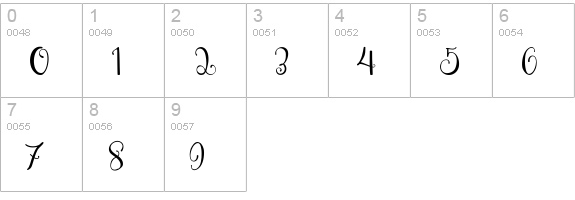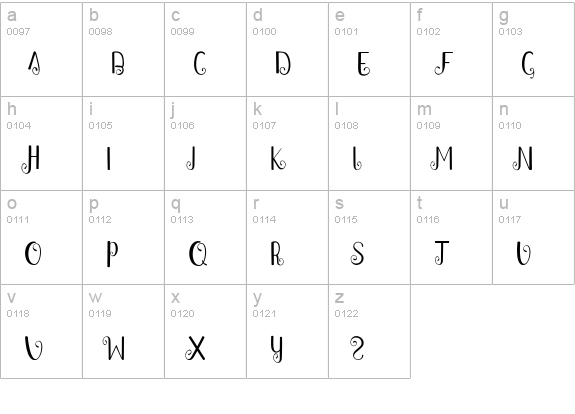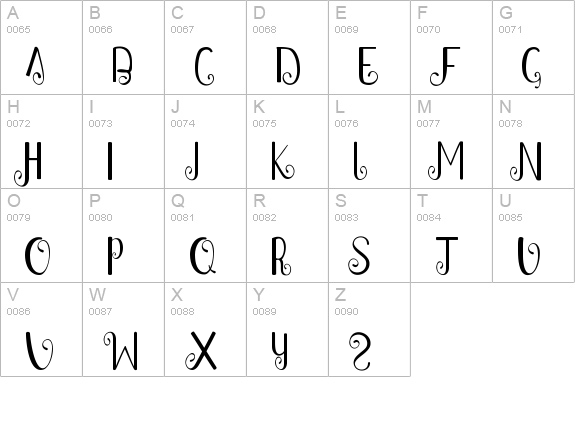
VITAGEOS VAIN SAN-SERIF Font Details
VITAGEOS VAIN SAN-SERIF font is a stunning display typeface that exudes elegance and sophistication. Its sleek and modern design makes it perfect for a wide range of design projects, from branding to editorial design. This font features clean lines and sharp edges, giving it a contemporary and stylish look. One of the best things about VITAGEOS VAIN SAN-SERIF font is that it is completely free to download. You can easily access this font at FontsMarket.com and enhance your design projects with its unique charm. Whether you're working on a poster, website, or logo design, this font will add a touch of class and professionalism to your work. With its versatility and timeless appeal, VITAGEOS VAIN SAN-SERIF font is a must-have for any designer looking to elevate their projects. Download it today and let your creativity shine with this exquisite typeface.